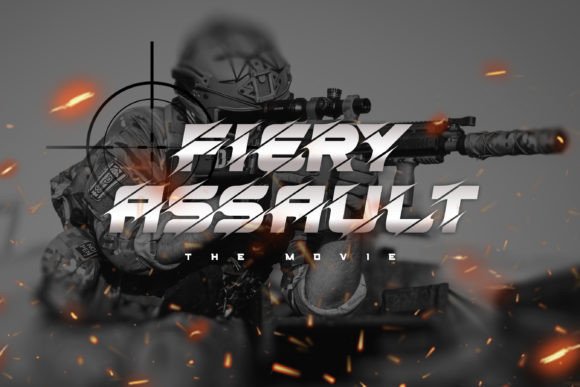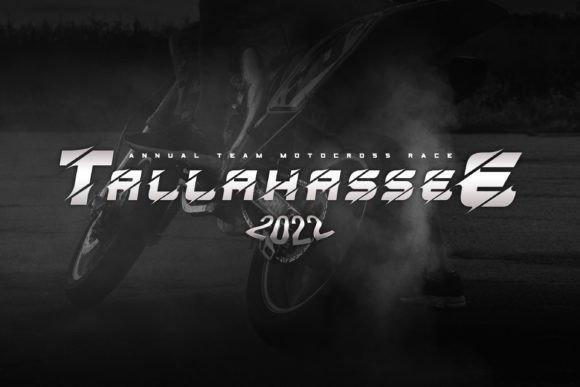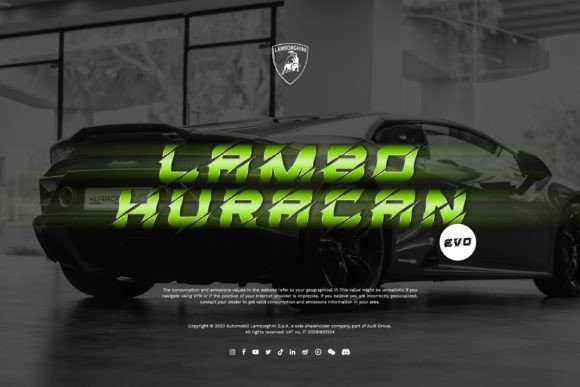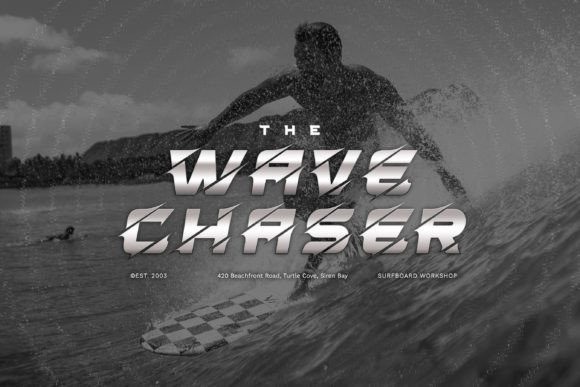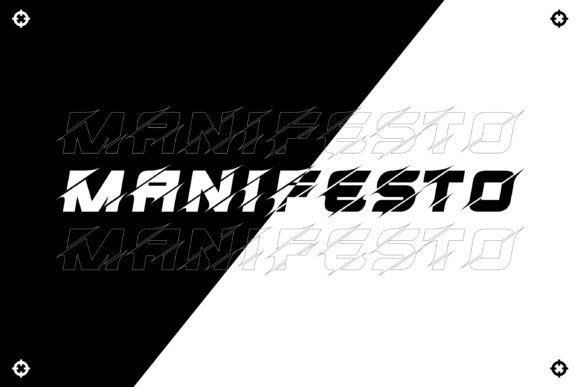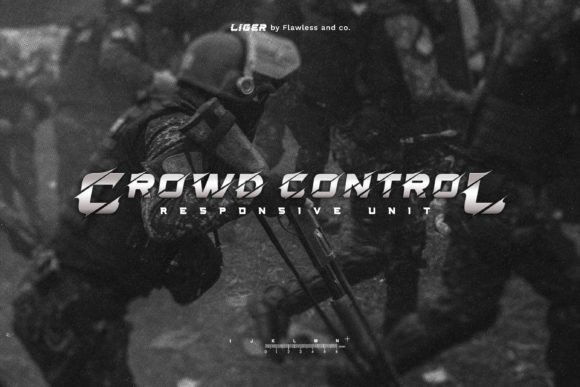
Introduction to Liger Font
Liger is a dynamic and captivating sports display font designed to make a bold statement.
Inspired by the power and agility of the legendary creature itโ€™s named after, Liger brings a perfect blend of strength and style to your creative projects .
Key Features of Liger Font